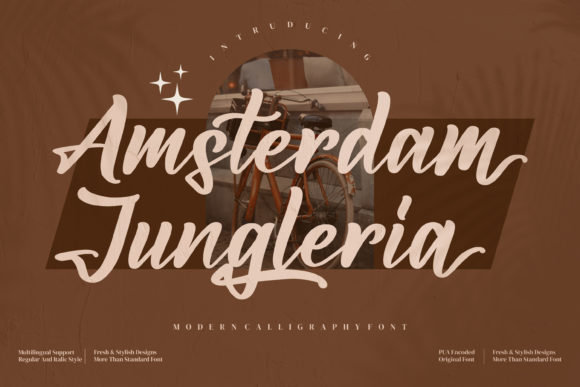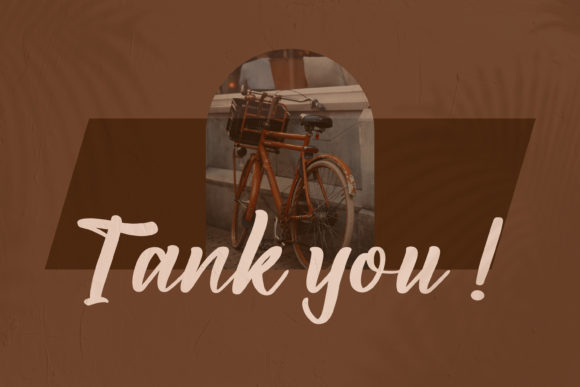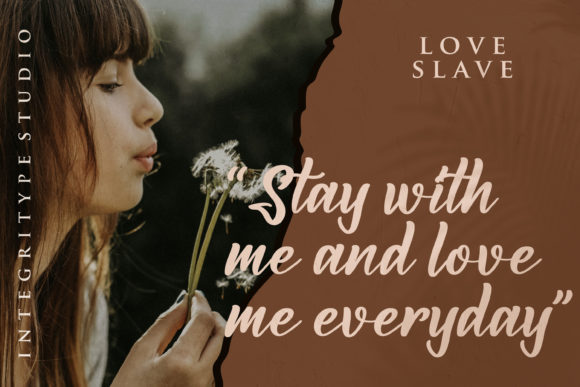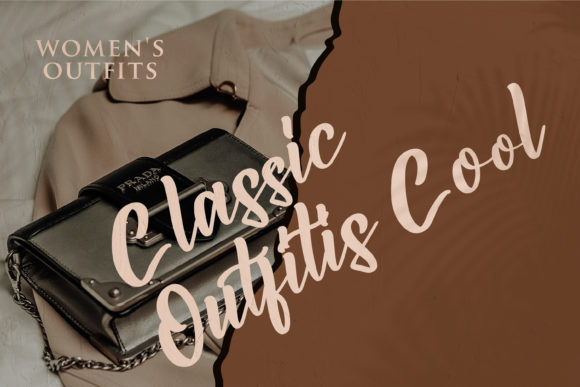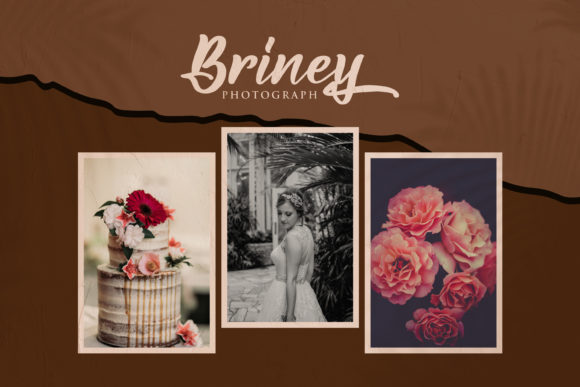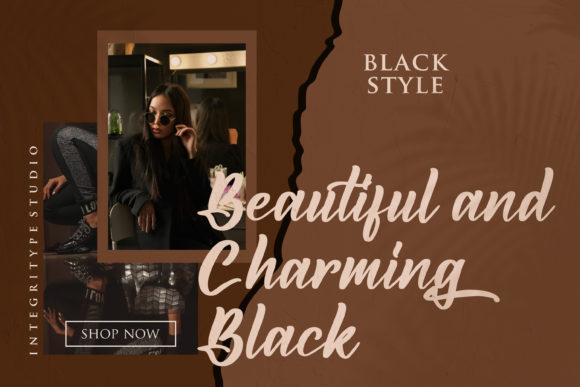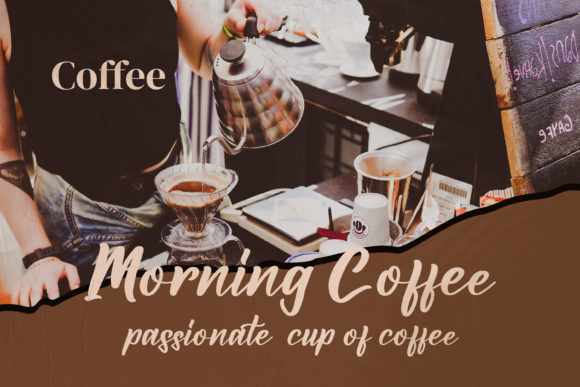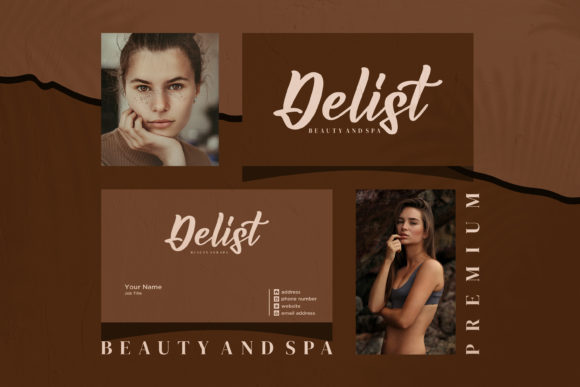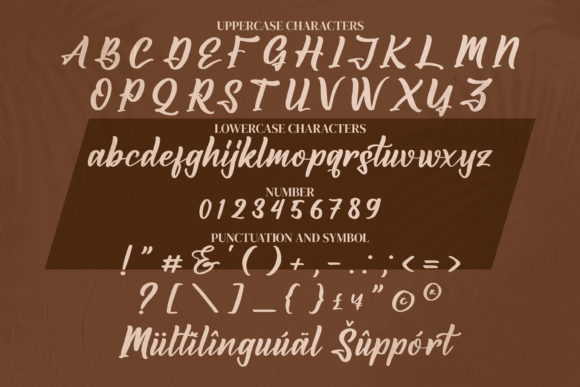
About Amsterdam Jungleria Font
Amsterdam Jungleria is a beautiful, well balanced and vintage styled script font. It is defined by smooth curves and is perfect for fashion branding or editorial designs. This font is PUA encoded which means you can access all of the glyphs and swashes with ease!Â